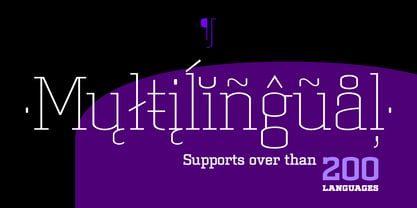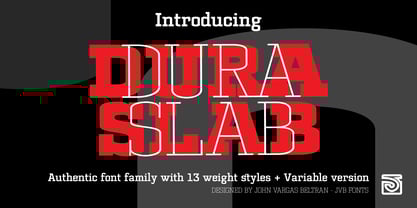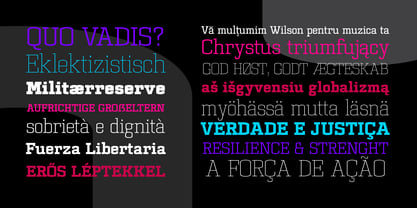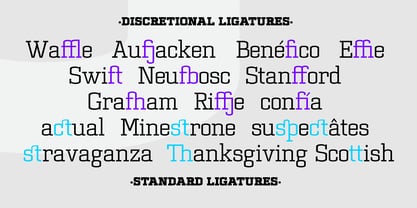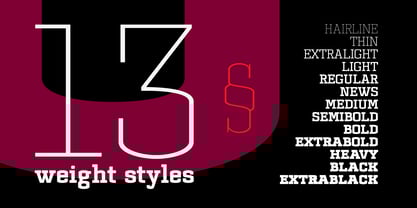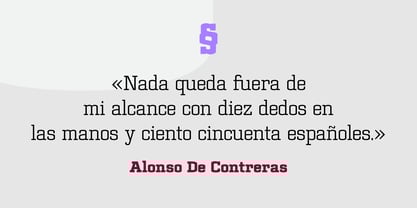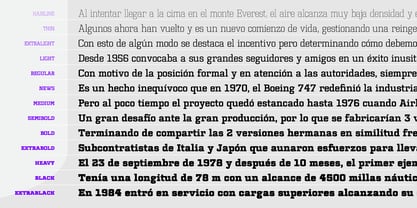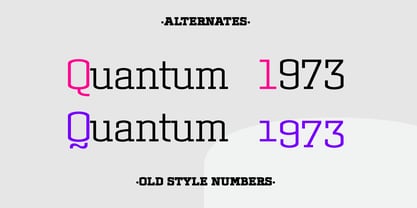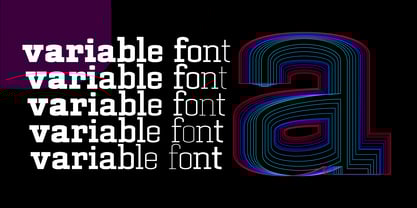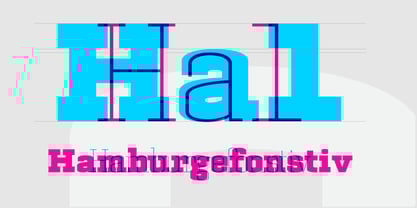
Dura Slab
The Dura Slab Font Family was designed by John Vargas Beltrán and published by JVB Fonts. Dura Slab contains 14 styles and family package options.
What happens if a simple geometric shape generates a smooth but rough curve at the same time? Dura Slab is reminiscent of a Slab Serif font, with a fairly simple and modular geometry, ideal for headlines and short texts.
Dura Slab is a font family with variable weights integrated into a single file, or if you prefer in single weight versions. Includes several discretional ligatures and more alternates.